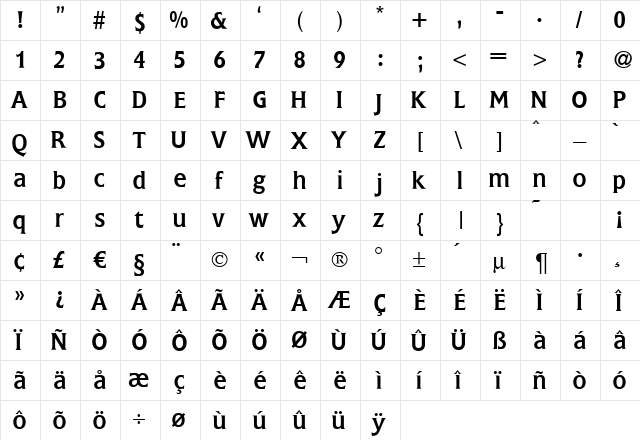
Fleming Regular
Design Context for Fleming Typeface
Fleming offers clean, dependable letterforms without strong stylistic allegiance, making it a practical choice for designers who need flexibility.
Pro Tip: Use Fleming in both headline and body roles to test its range before committing to a single application.